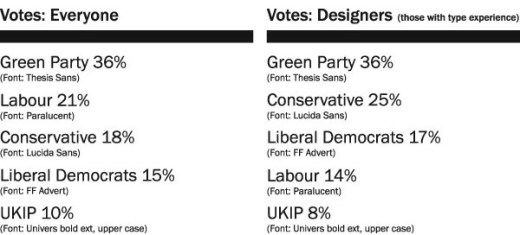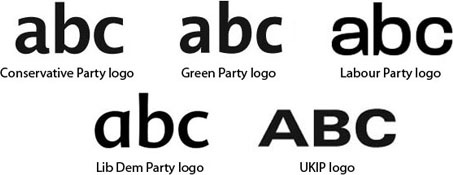
“You have really opened my eyes to such a brilliant subject. It’s already making me view design work from such a different view point and I have now become excited by the possibilities typefaces present while experimenting with them.” Design student Jessica Dutton
“This alongside the typography bible (Robert Bringhurst’s elements of typographic style) should become a staple in everyone’s collection.” James (Via Creative Review blog)
“This is no boring instructional tome on the correct use of ligatures, rather it takes a look at the emotional lives of fonts, and examines how their distinct personalities create (often subconscious) emotional responses.” Grafik
“This brilliantly bizarre event seems like it could be plucked straight from Willy Wonka’s chocolate factory. Uncover the personalities of your favourite fonts and learn more about your own through a series of multi-sensory games at the V&A.”
Can a font set the mood?
If fonts were to play the starring roles in a movie, how much would they tell you about each scene?
In this movie the fonts set the scene, provide the sound track, tell the the story and alter the mood. What do the typefaces tell YOU about this story as it unfolds? Take the survey and tell us at the end, here are some of the suggestions so far:
“A very messed up zombie-rom-period-action clip”
“About a normal guy, where something horrifying happens and then he has to fight for his life”
“Bizarre coming of age story”
“Harry Potter kind of thing but not as dark and with sort of a whimsical ending”
“Tons of action and probably explosions of some sort”
“In the end, everything works out and he gets the gal”
Do you agree?
Pop-up Typography Lab at the V&A for the London Design Festival
Have you ever wondered what a font might smell like? Whether it can make a product appear more expensive? Or what your choice of font says about your personality?
Join innovative type expert Sarah Hyndman as she invites you to join in with the research by taking part in a series of entertaining games and perception experiments with type. Profile the personalities of typefaces; judge whether a font can make a product more expensive and therefore more enjoyable, and explore whether it could even alter the taste of what you eat. Find out which typefaces you would date, ditch or be ‘just good friends’ with and how they reflect your own personality. Sarah is the founder of Type Tasting, author of ‘The Type Taster: How Fonts Influence You’.
You are invited into a ‘typographic wonderland’ of interactive games and experiments involving fonts which are designed to surprise and intrigue. These explore our role as type consumers and show how type is woven into the rituals of our everyday lives. Each font/typeface has a personality that influences our interpretation of the words we read by evoking our emotions and setting the scene. Come along and you can be a part of this innovative research and be the first to find out the results.
• Try on ‘font goggles’ to reveal what some fonts are really communicating to you.
• Try your hand at font sniffing: can you match the smells to the typefaces?
• Witness fonts altering the meanings of words right before your very eyes.
• Be amazed that a font could have the power to alter the taste of your food.
• See what personalities fonts have, and what they reveal about YOUR personality.
Questions being explored:
• Can a font make a product appear more expensive?
• Do fonts have recognisable personalities?
• Can a typeface alter the taste of what you eat?
• Can a font alter the mood of what you read?
• When is a Serif a better choice than a Sans Serif typeface, why?
“You’ll never look at fonts in the same way again.” Hannah Stewart
“As bizarre as it sounds, my job is to match up the bottles and fonts using only my sense of smell.” Jake Wallis Simons, CNN
Font Elections poll results
These are the poll results for the online Font Elections survey. Voting is based on the typefaces used in the logos of the five most prominent political parties in the upcoming UK General Elections. The most interesting thing about the responses are the descriptions, participants were not made aware of which font matched each party until the end.